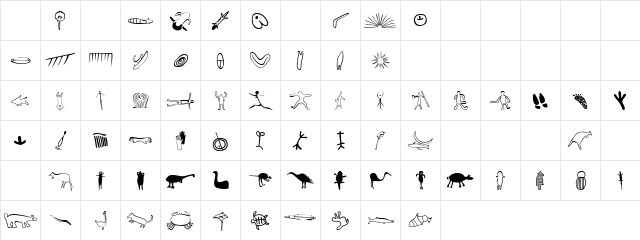
Complete P22Petroglyphs Australian glyph index. Displaying only characters natively supported by P22Petroglyphs Australian font.
P22Petroglyphs is a composed and adaptable typeface that performs quietly and consistently across a wide range of design contexts.